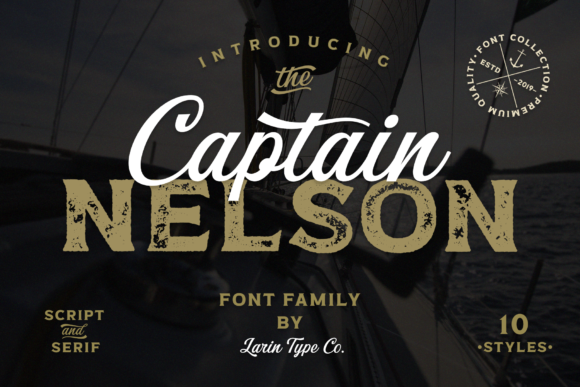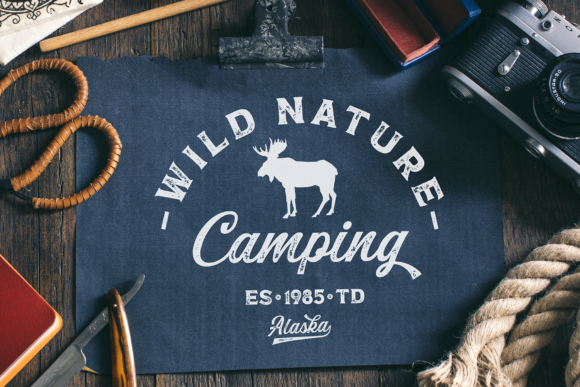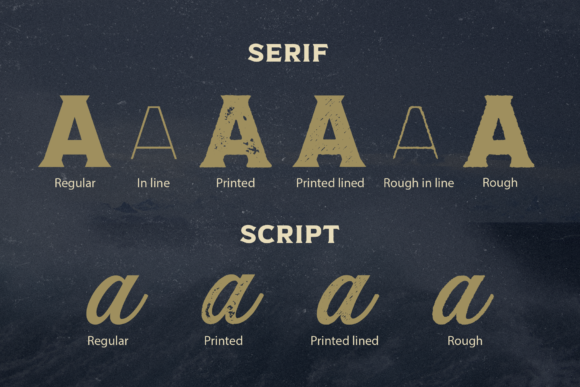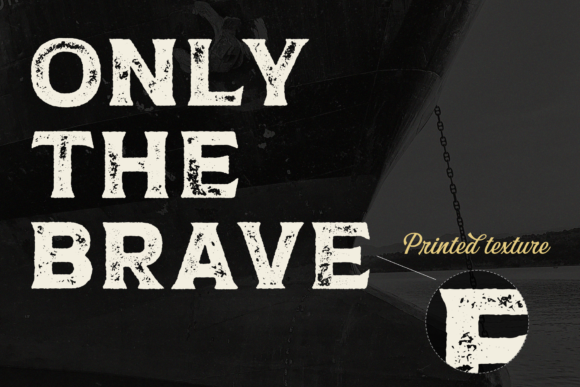
Captain Nelson Font
About the Captain Nelson Font
Welcome to the world of Captain Nelson Font, a typeface that will inspire your next great project. Captain Nelson brings together two incredible fonts that will perfectly fit together to create stunning design results. While the script font delivers the charisma and charm, the serif version of this font duo will add a layer of confidence to your next design idea.
Captain Nelson’s script excels in headlines, logos, and short-form text applications like invitations or packaging where its charm and charisma shine. The serif companion is ideal for supporting text in these same applications, adding a touch of sophisticated gravitas. However, avoid using either font for extensive body copy or UI elements; their decorative nature reduces readability in large blocks of text.
The overall personality is confident and subtly playful, lending itself well to brands focused on heritage, craftsmanship, or premium products. Think bespoke tailoring, artisanal food, or high-end spirits.
Pairing suggestions include a clean sans-serif like Helvetica Neue for a modern contrast, or a classic serif such as Garamond for a more traditional feel. For a touch of elegance, consider pairing the script with a delicate script like Playfair Display (used sparingly).
Captain Nelson Font Usage Examples
Captain Nelson Font Example